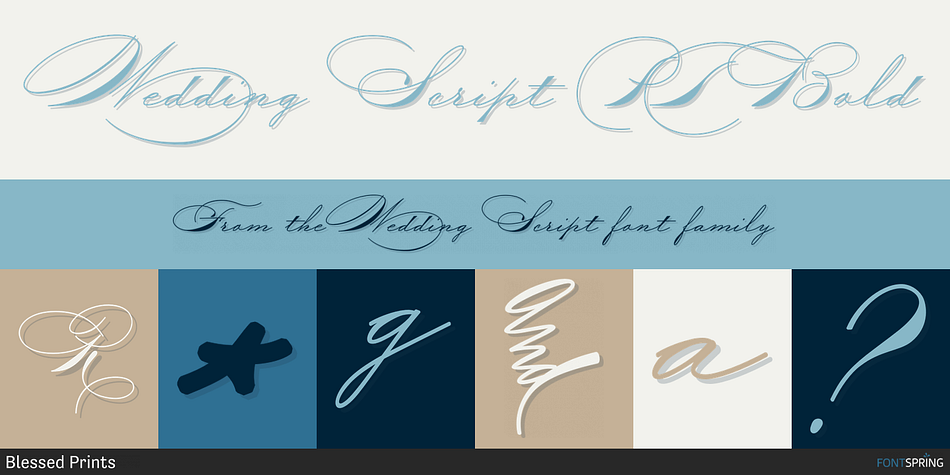
Wedding Script PT Bold
Designed by Dmitrii Mikitenko, Wedding Script is a modern calligraphy font family. This typeface has nine styles and was published by Blessed Prints.
To be like a pro spencerian calligrapher now is easier with The WEDDING Script. It is opentype ornamental penmanship font-family. Perfect for creating handwritten addresses, wedding invitations, menus, etc. Capital letters have 7-8 options. Watch how The Wedding Script works in Photoshop. You’ll find more than 50 elegant swashes. Bonus: Editable wedding invitation set.